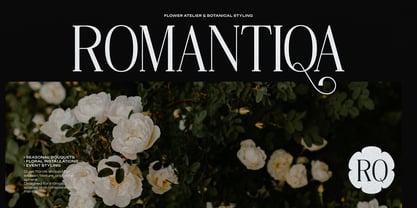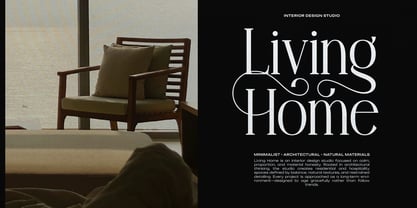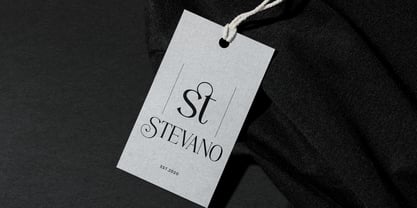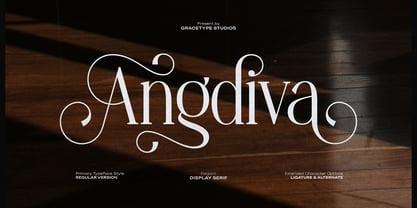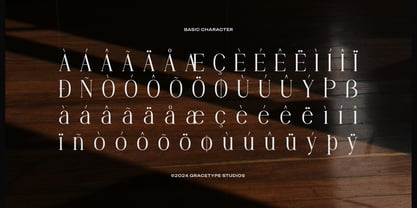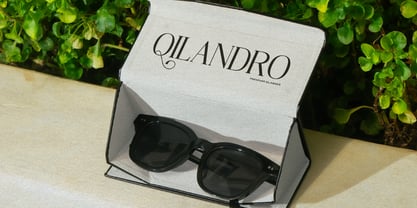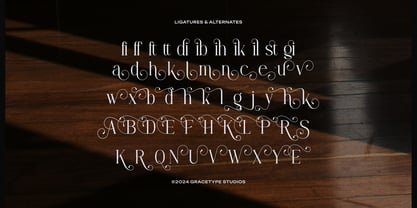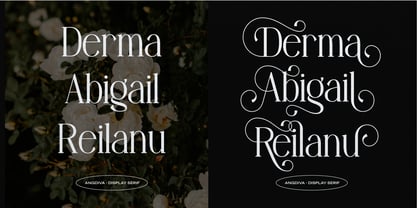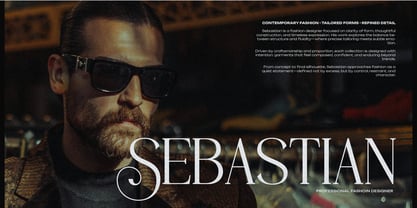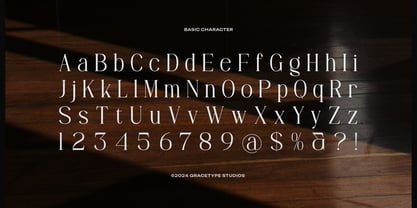
Angdiva
von Tini Fitriani
Die Schriftfamilie Angdiva wurde von entworfen und von Tini Fitriani veröffentlicht. Angdiva enthält 2 Stile und Familienpaketoptionen. Mehr über diese Familie
Angdiva | Display Serif Font, from Gracetypestudio, suitable for any projects such as: logos, branding projects, homeware designs, product packaging, mugs, quotes, posters, shopping bags, t-shirts, book covers, name card, invitation cards, greeting cards, label, photography, watermark, special events, and all your other lovely projects that need a Serif taste.